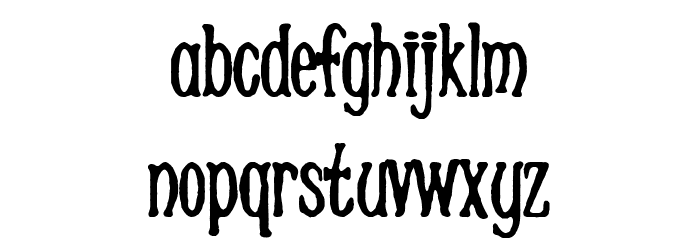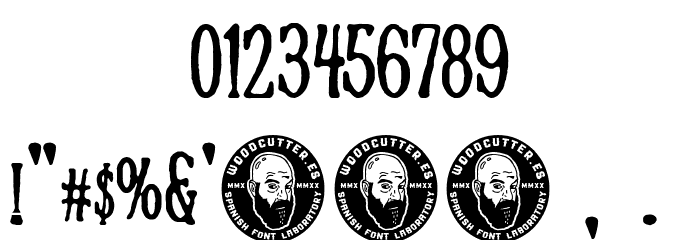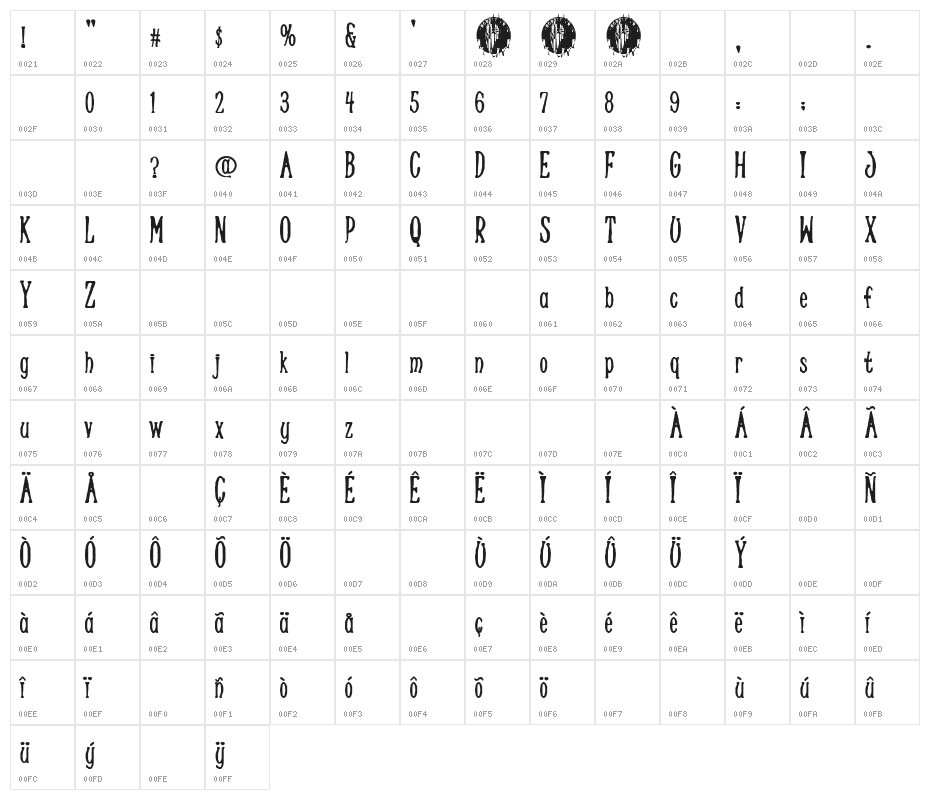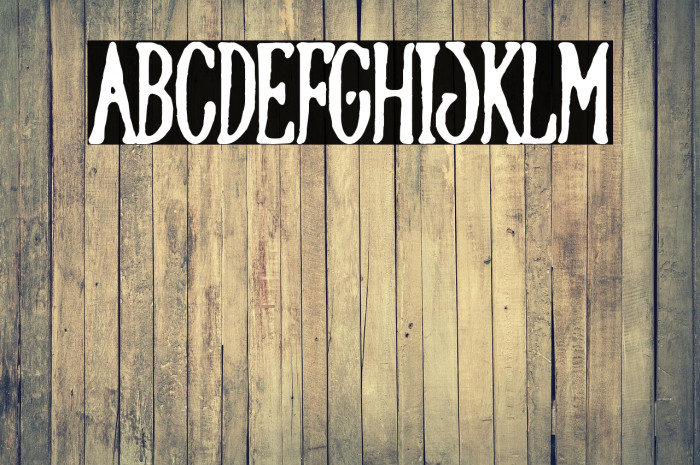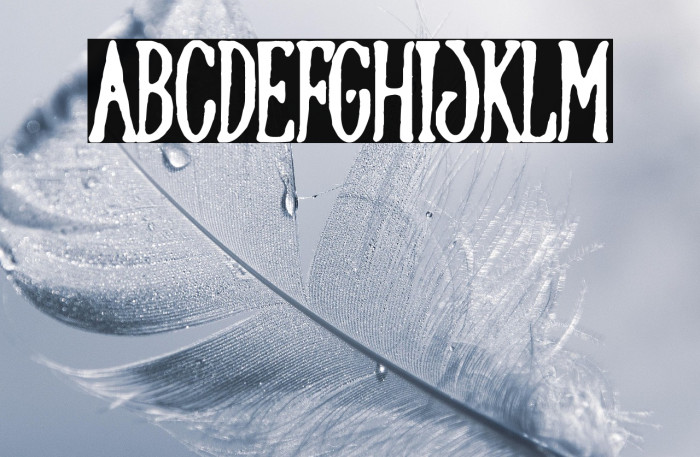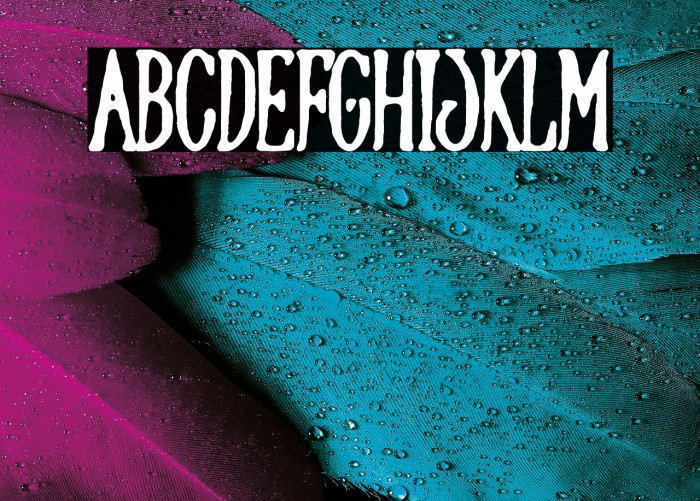
Graphic Lady Font
This font features a bold and slightly condensed style with a hand-drawn appearance, giving it a unique and artistic flair. The uppercase letters are tall and narrow, with a slight unevenness that adds to its charm. The lowercase letters maintain a consistent style, with rounded edges and a playful feel. Numbers are similarly styled, ensuring a cohesive look across all characters. Special characters are included, matching the overall aesthetic. This font is perfect for projects that require a creative and distinctive touch.
A bold, hand-drawn font with a unique and artistic style.
- Font: Graphic Lady
- Proposed Projects: Ideal for posters, artistic designs, branding projects, and creative headlines.
- Overall Style: Artistic, Creative